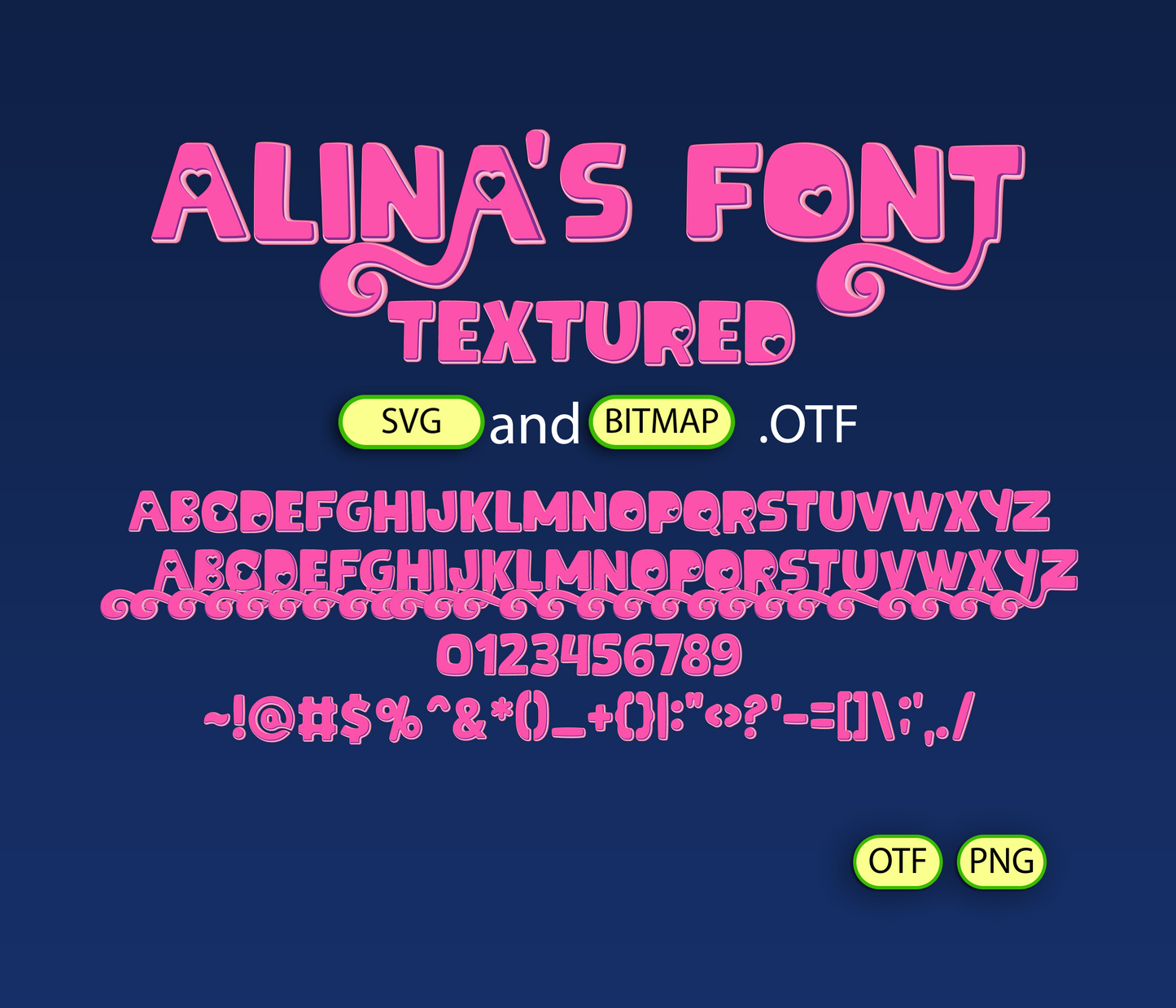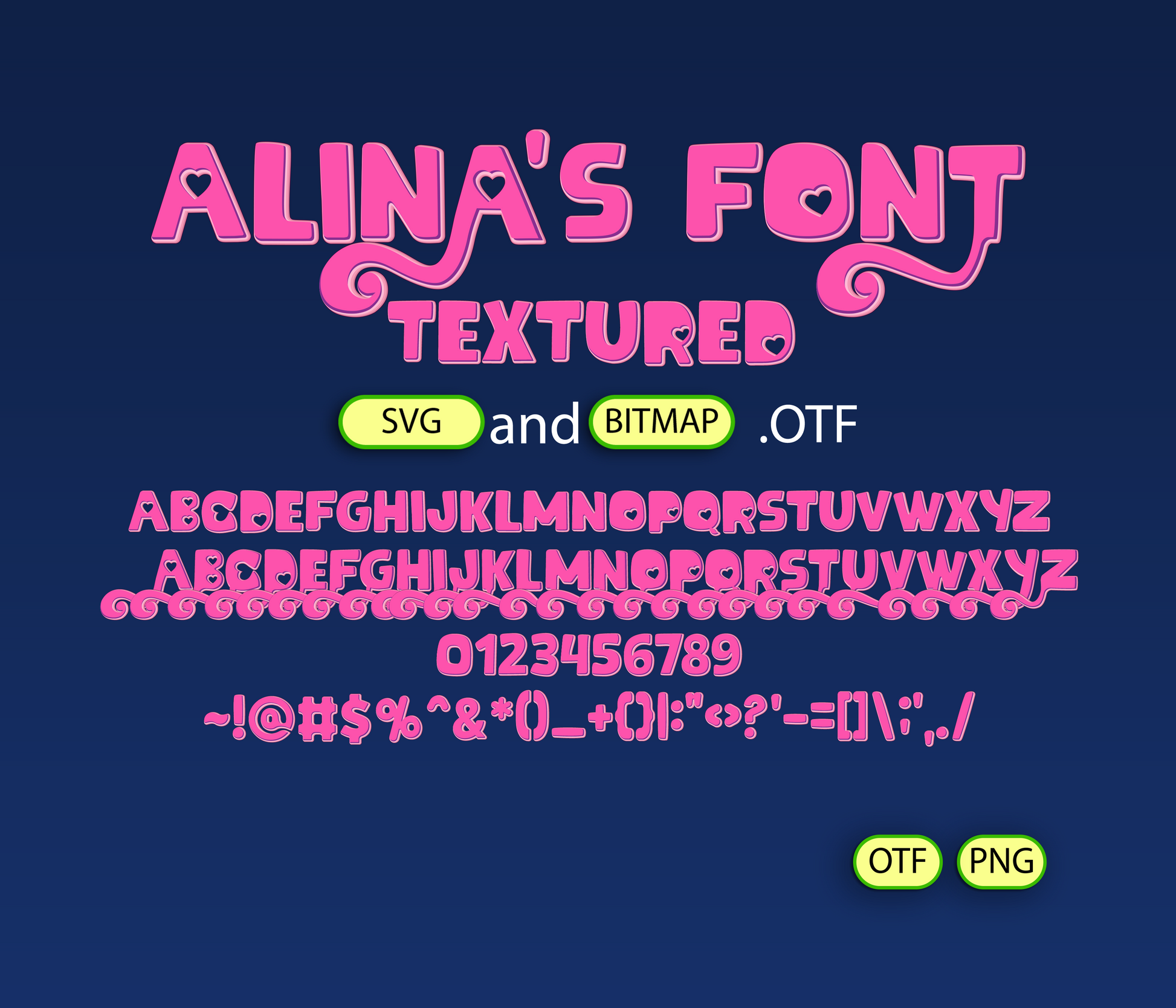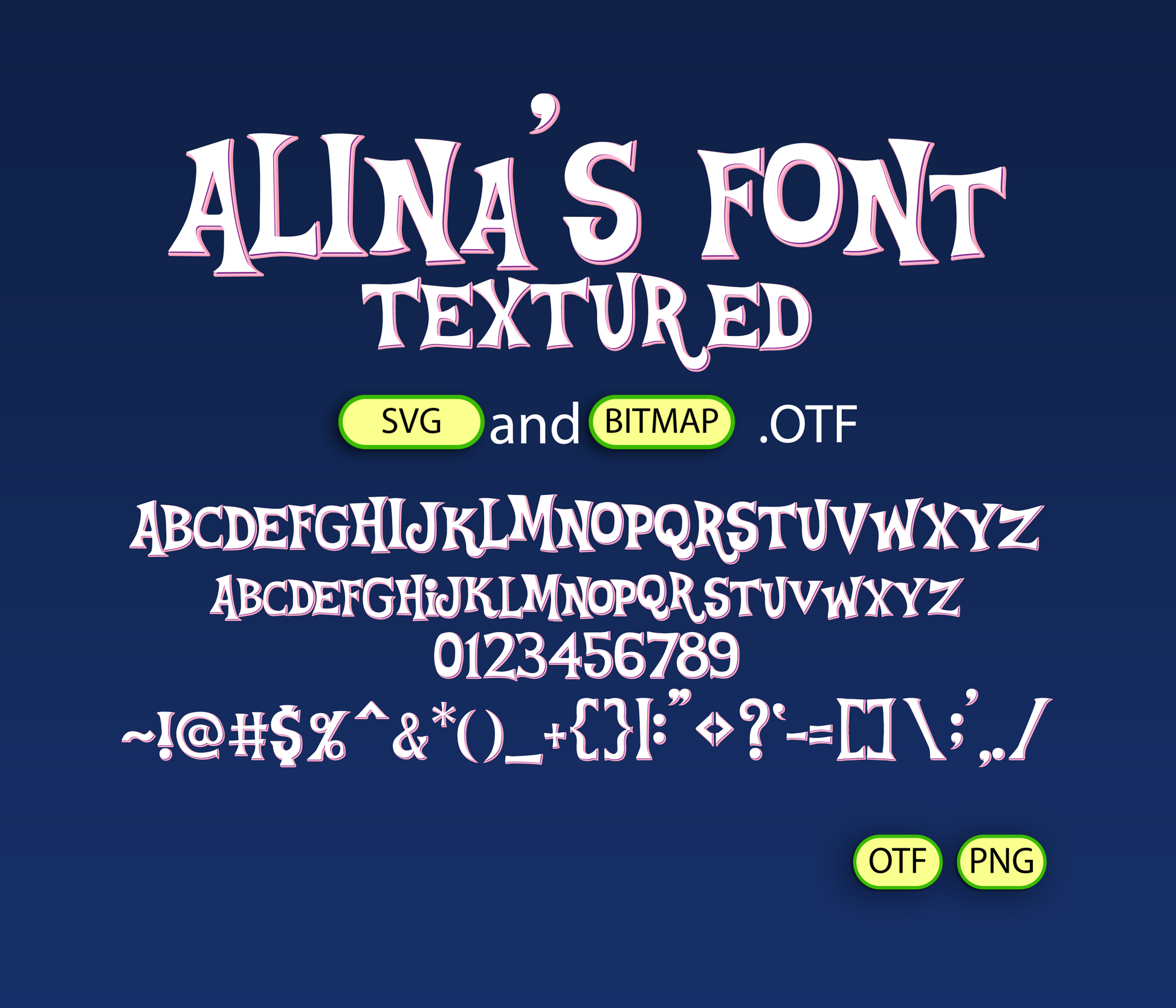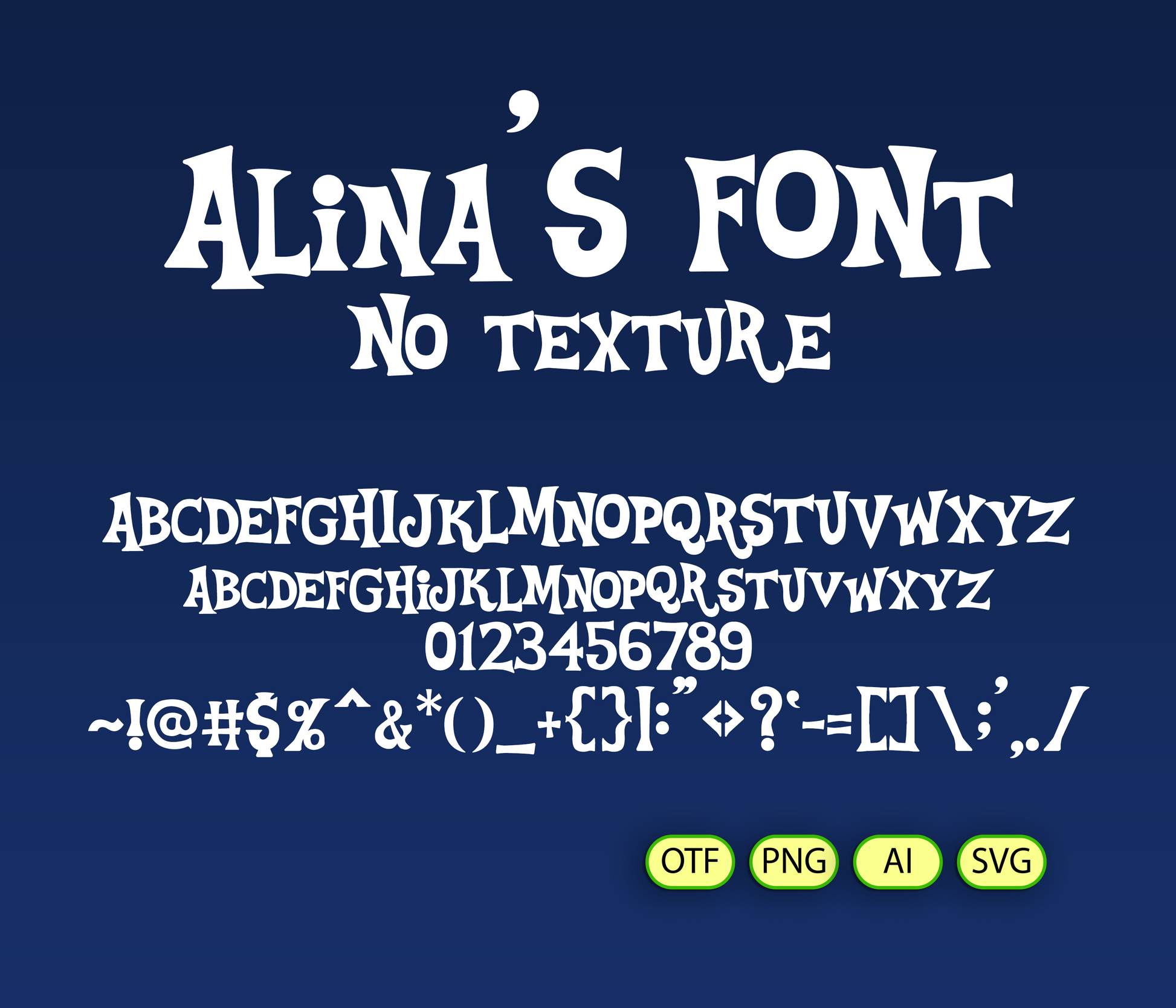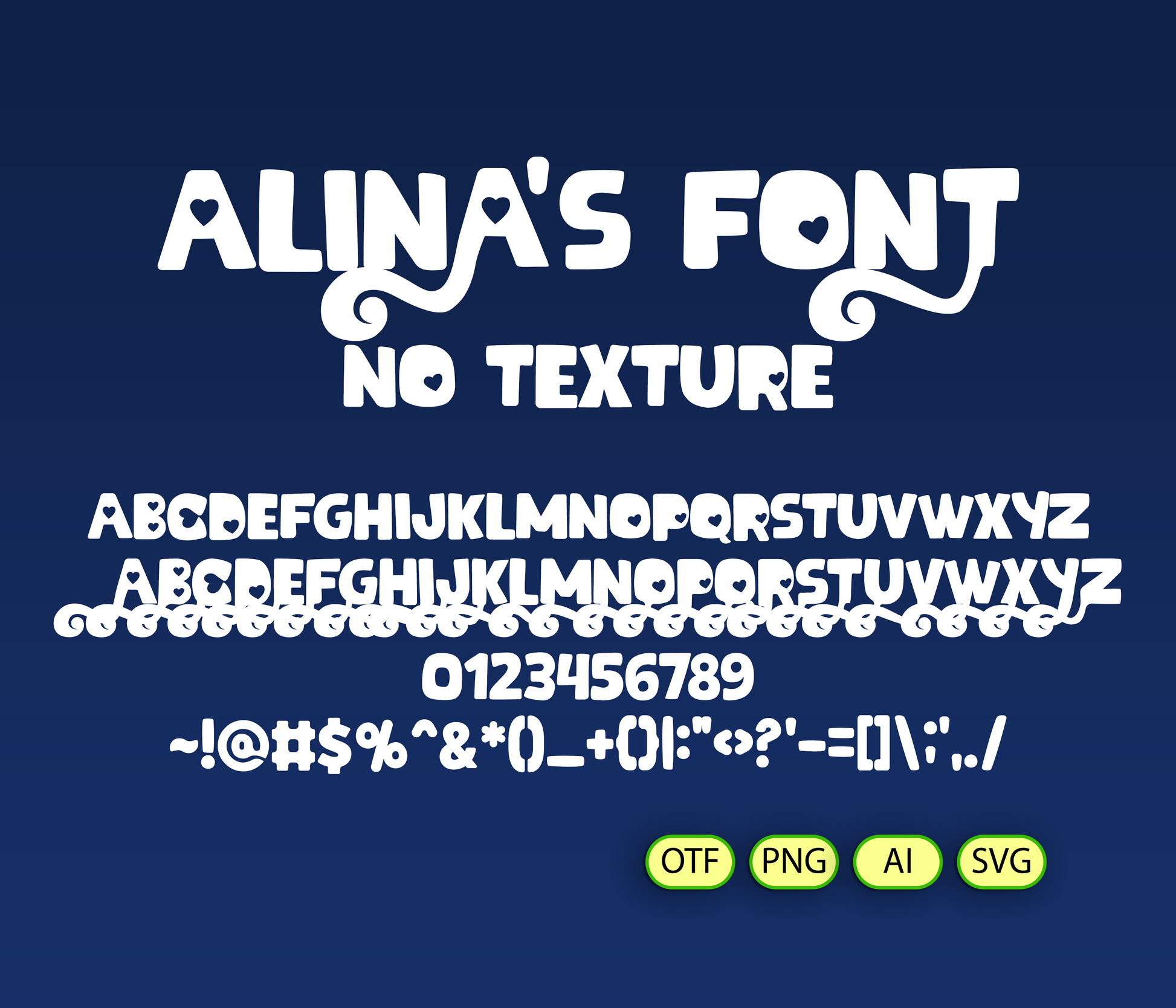
Enchanted Equines and Magic Font Textured
Enchanted Equines & Magic Font Textured
Canter into a world of wonder with our Enchanted Equines & Magic font, capturing the heartwarming spirit of magical ponies and their tales of friendship. Perfect for creators, party planners, and designers looking to sprinkle their projects with sparkle and joy. Create enchanting invitations, whimsical merchandise, or magical content that radiates pure happiness.
Our Enchanted Equines & Magic font features playful curves and magical elements reflecting the joyful spirit of friendship. Ideal for:
Our Enchanted Equines & Magic font includes textured and non-textured variants, ensuring compatibility with all software, including Canva. This feature allows easy incorporation into designs for users of all skill levels.
Our font celebrates the power of harmony and friendship, empowering your designs with its joyful spirit. Whether crafting party materials, designing merchandise, or adding a magical touch to personal projects, this font communicates the essence of wonder and adventure.